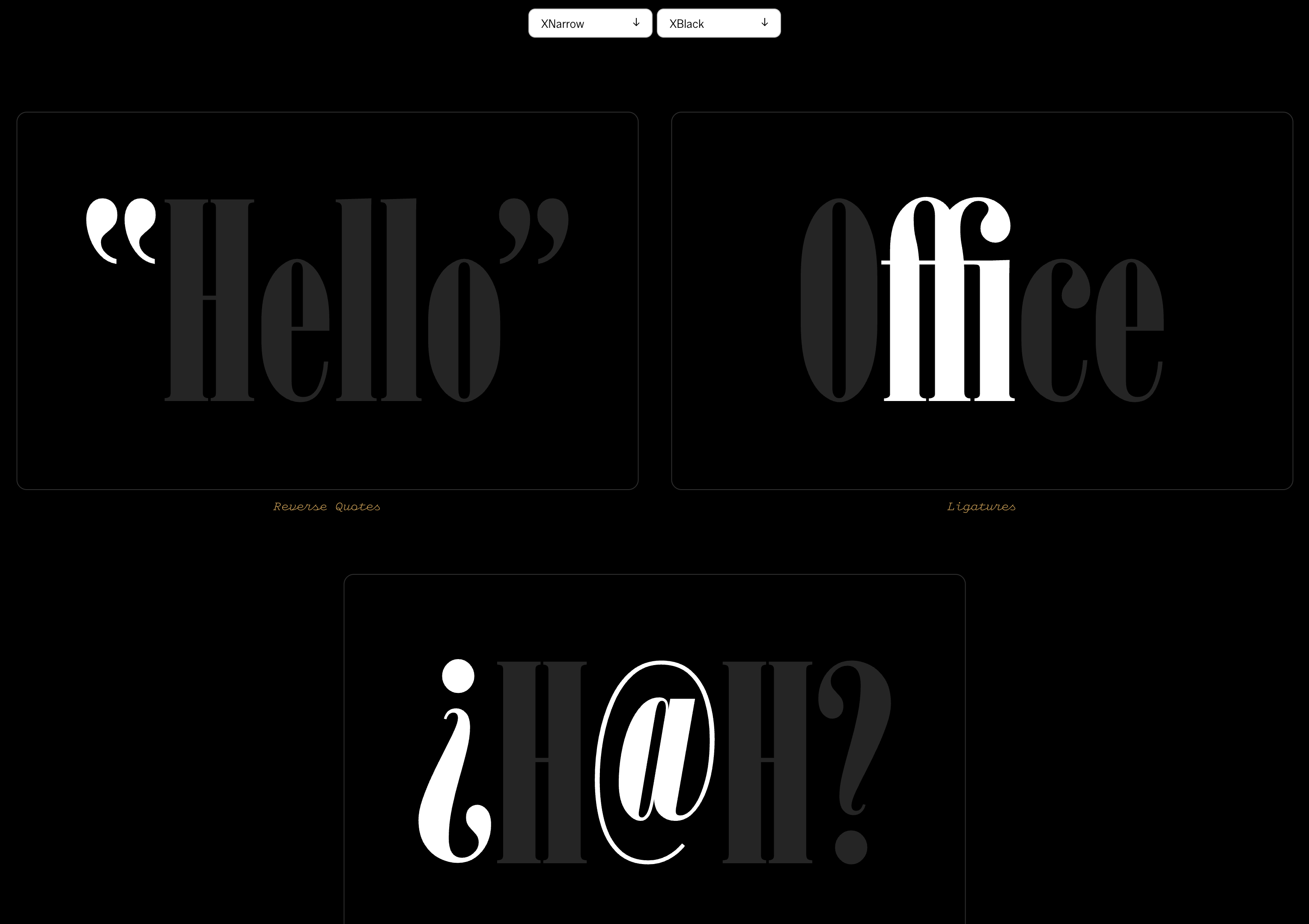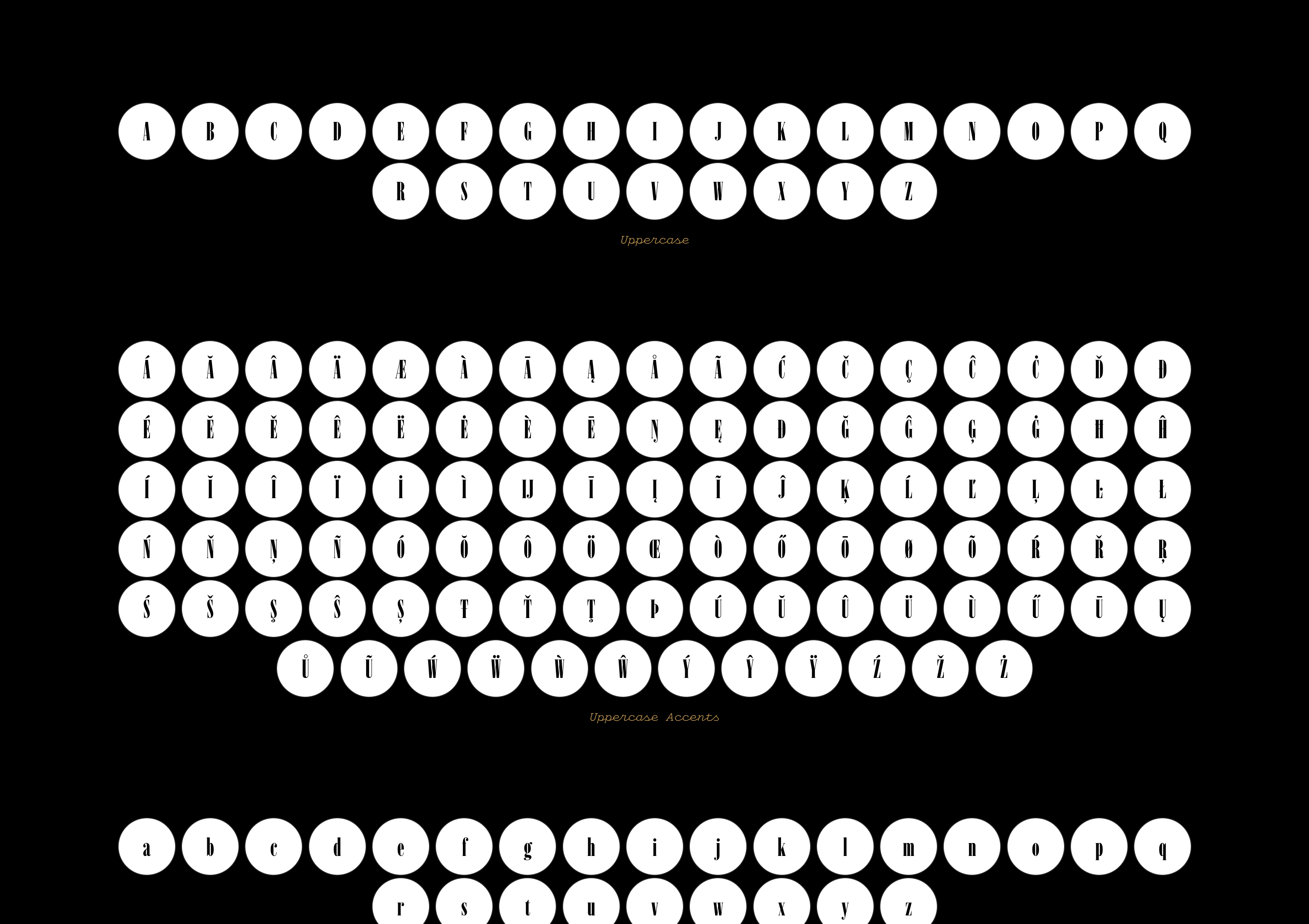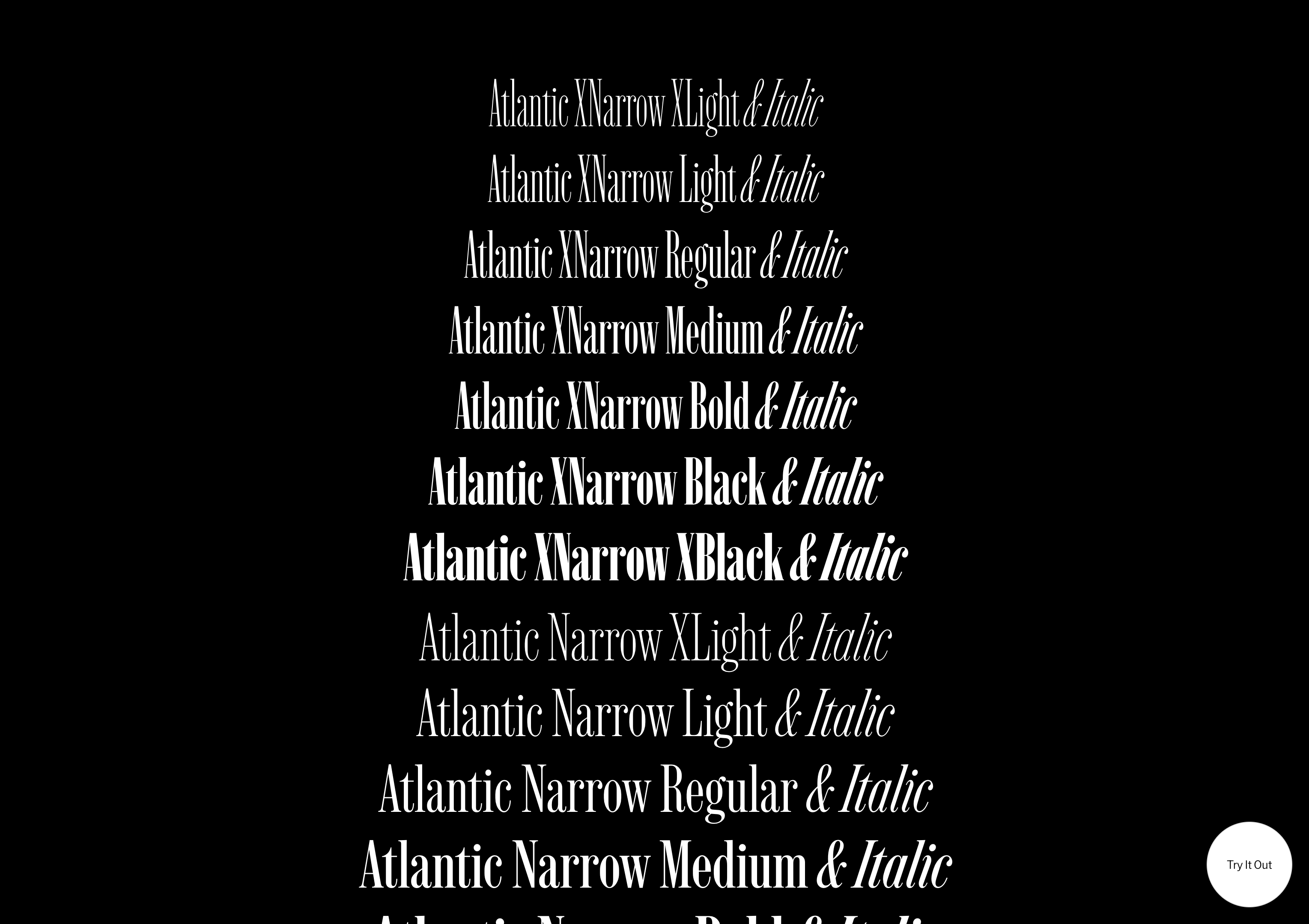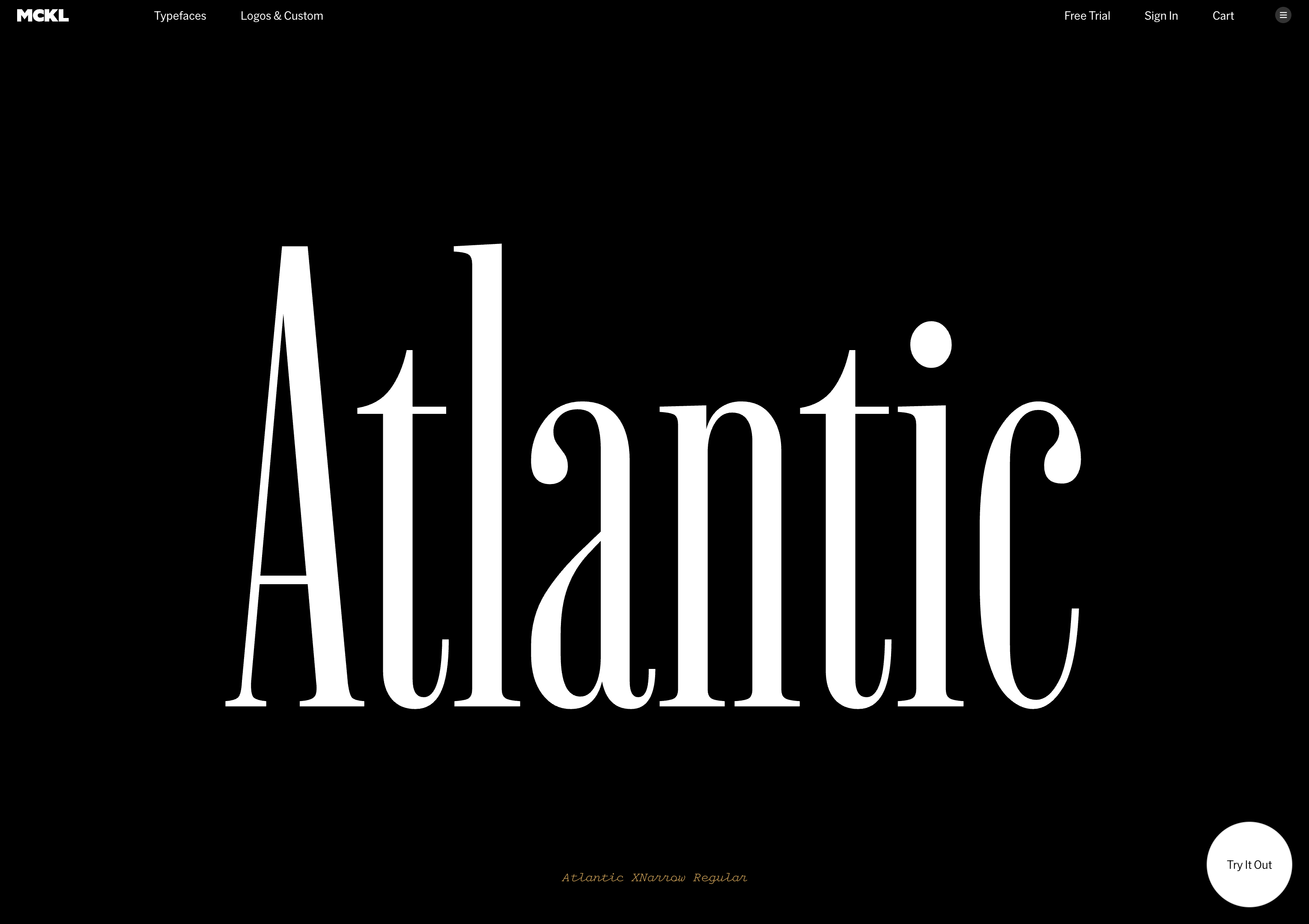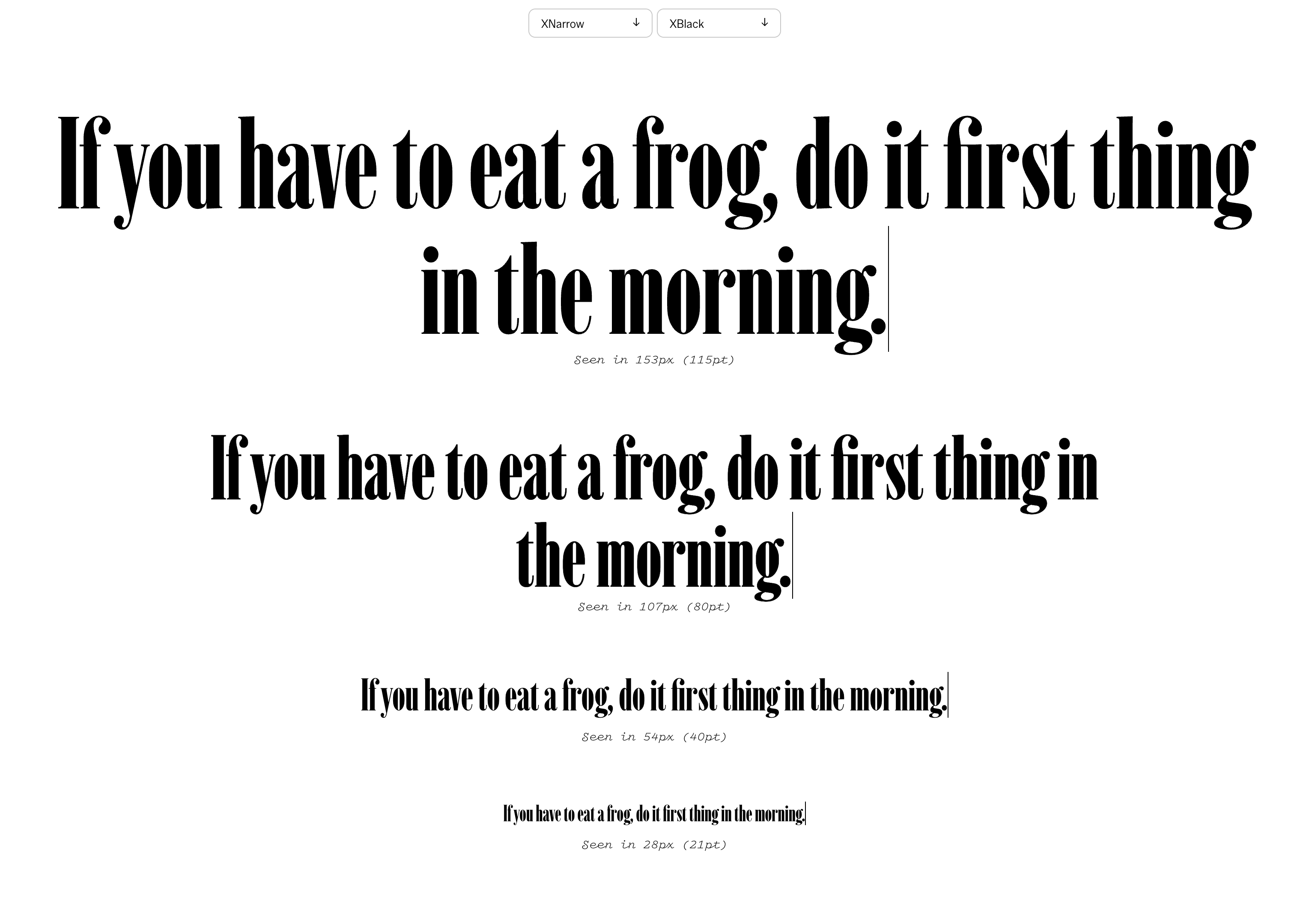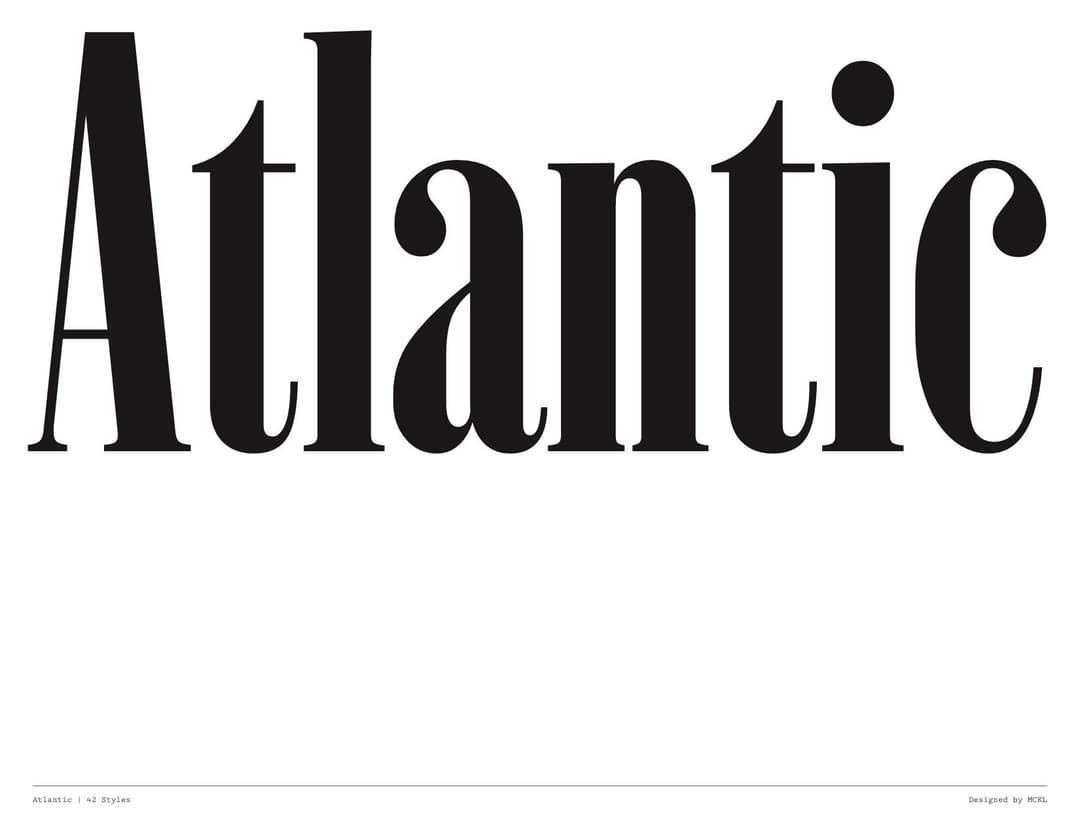
Atlantic
- 42 styles 3 widths, 7 weights each Roman and Italic
- Designed by Jeremy Mickel Published in 2026
Atlantic is a new family of display serif typefaces from MCKL inspired by American interpretations of Scotch Romans offered in 3 widths, multiple weights, and matching italics.
Atlantic was originally commissioned for the 2019 redesign of The Atlantic magazine. What began as a single headline font evolved into a much broader typographic system, informed by years of real-world use and expanded through ongoing development at MCKL.
OpenType Features
Reverse Quotesss05
“Hello”
“‘
Ligaturesdlig
Office
ffb ffh ffi ffj ffk ffl fb ff fh fi fj fk fl
Open Circular Numbersss02
123
0123456789
Filled Circular Numbersss03
456
0123456789
Case-sensitive Punctuationcase
¿H@H?
-–—@¿¡
Alt arrowsss01
←↑→↓
←↑→↓↖↗↙↘